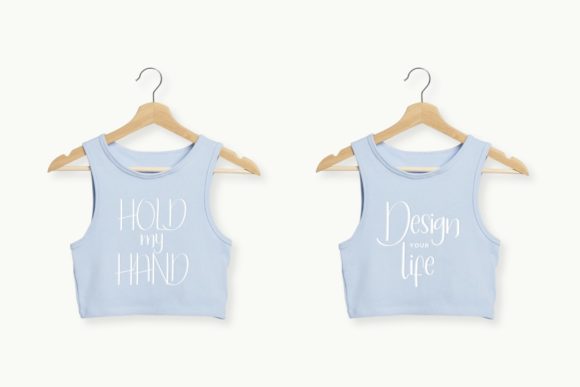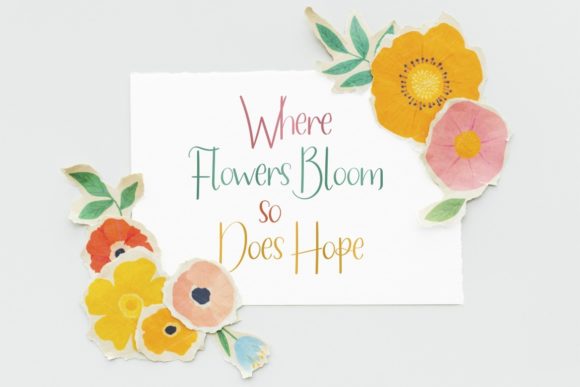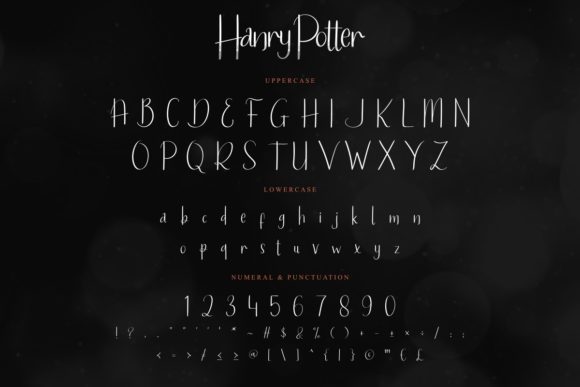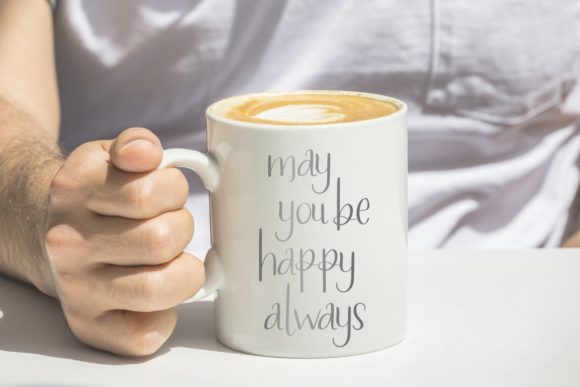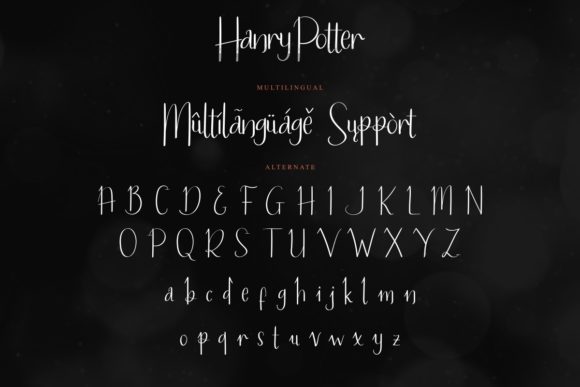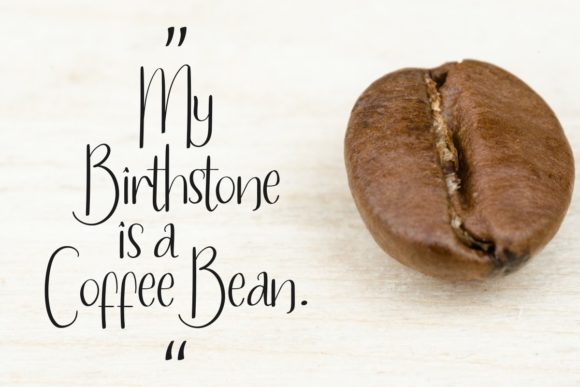
Introduction to Hanry Potter Font
As a designer, there’s nothing quite like the thrill of bringing a creative project to life. You’re pouring over design boards, trying out different color schemes, and searching for the perfect typography to tie everything together. And then, it happens – you stumble upon the perfect font. For many designers, that font is the Hanry Potter Font, a stunning handwritten font that adds a touch of elegance to any design.
Whether you’re working on a high-quality brochure, a free download for a client, or a design resource for a website, the Hanry Potter Font is an invaluable asset. Its transparent background and PUA encoded design make it incredibly easy to access and customize, giving you the creative freedom to bring your vision to life.
- Unique Magical Script: Hanry Potter Font features a whimsical, hand-drawn design inspired by the magical world of Harry Potter, perfect for creative projects.
- Perfect for Creative Projects: Hanry Potter Font is ideal for designers, writers, and artists working on creative projects, such as book covers, posters, and invitations.
Honest Review: Hanry Potter Font
I recently stumbled upon the Hanry Potter Font while searching for design resources for a creative project. Initially, I was drawn to its high quality and the fact that it’s available for free download, which is always a plus. The font’s transparent background makes it easy to use in various design scenarios.
What works well: ✨ The font’s unique design and versatility make it a great addition to any creative project. It’s suitable for both digital and print designs, and its readability is excellent. I also appreciate the fact that it’s a high-quality font that’s free to download, making it an excellent design resource for designers on a budget.
What doesn’t work well: ⚠️ While the font is great for general use, it may not be suitable for certain design projects that require a more formal or traditional font. Additionally, some users may find the font’s design a bit too playful or whimsical for their taste.
Overall, I’m impressed with the Hanry Potter Font and would definitely recommend it to designers looking for a high-quality, free font for their creative projects.
The Hanry Potter Font is ideal for a variety of creative projects, including:
- Book covers and book titles.
- Movie and TV show posters.
- Advertising and marketing materials.
- Personalized gifts and invitations.
With its unique and magical style, the Hanry Potter Font is sure to add a touch of magic to your creative project.